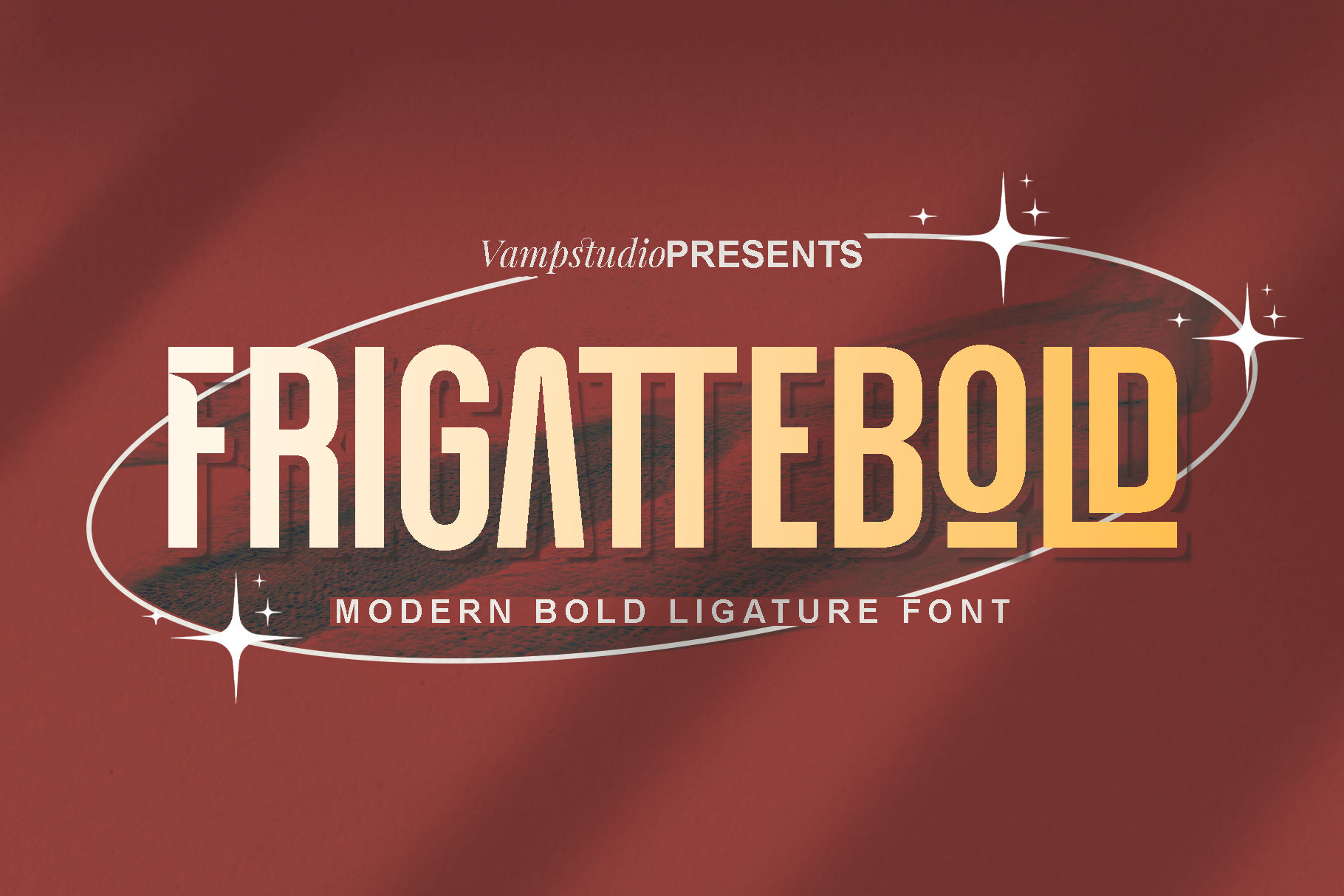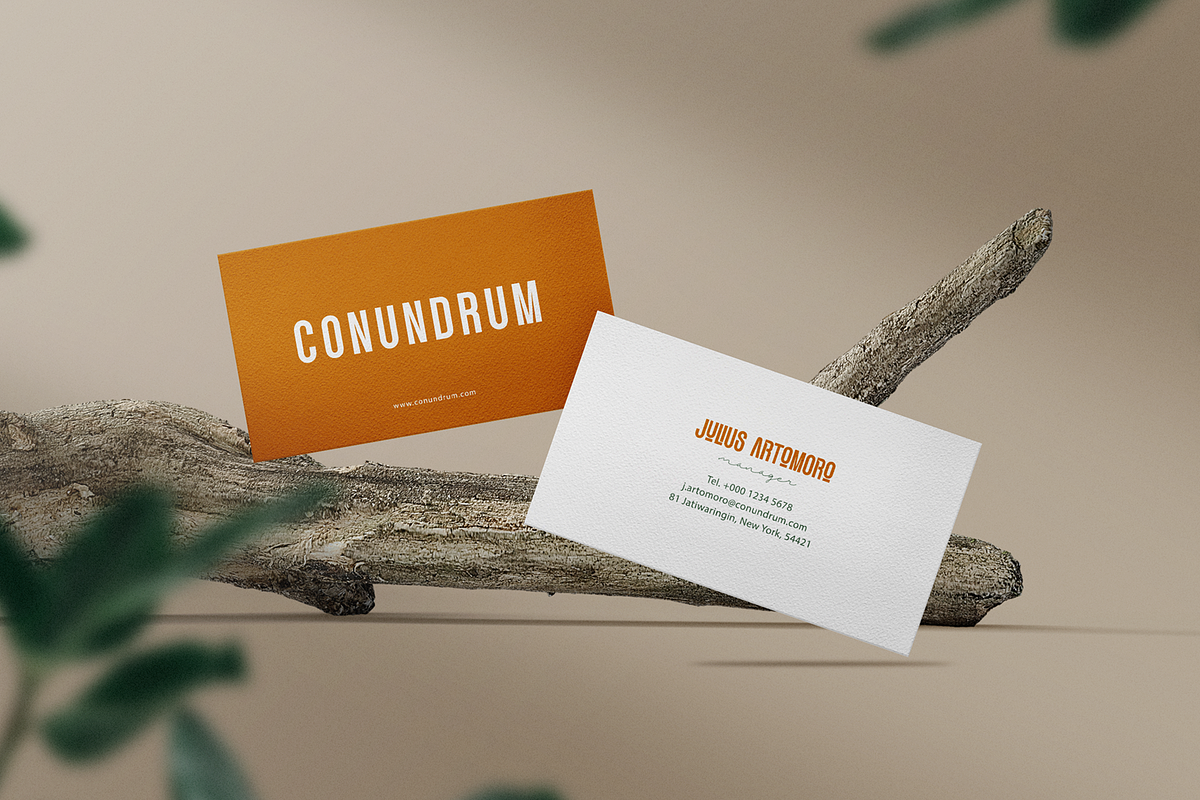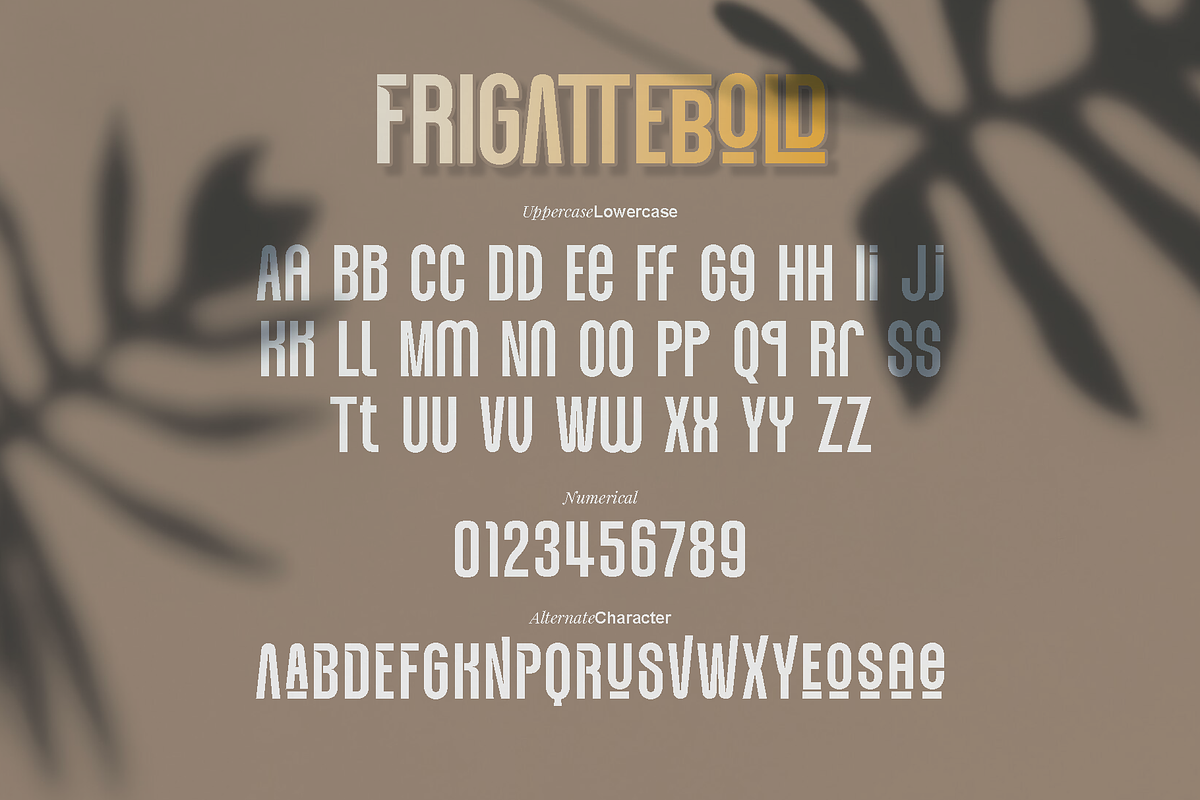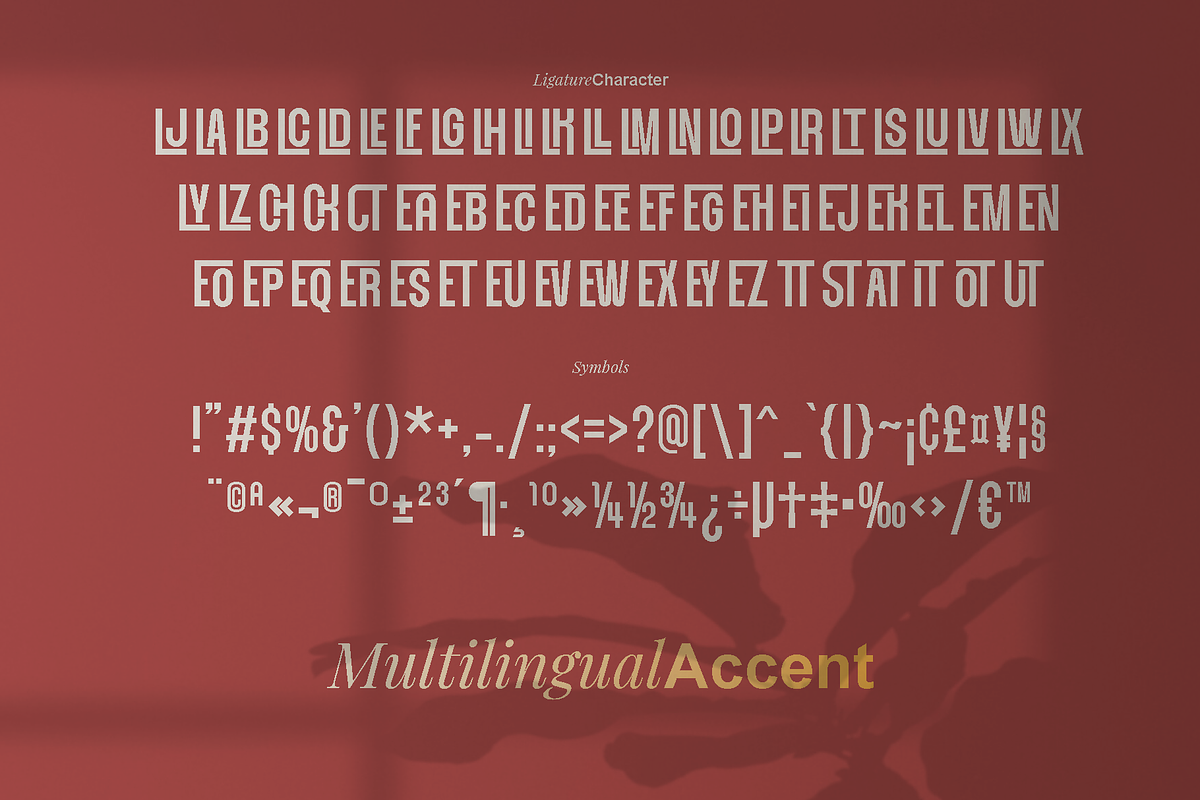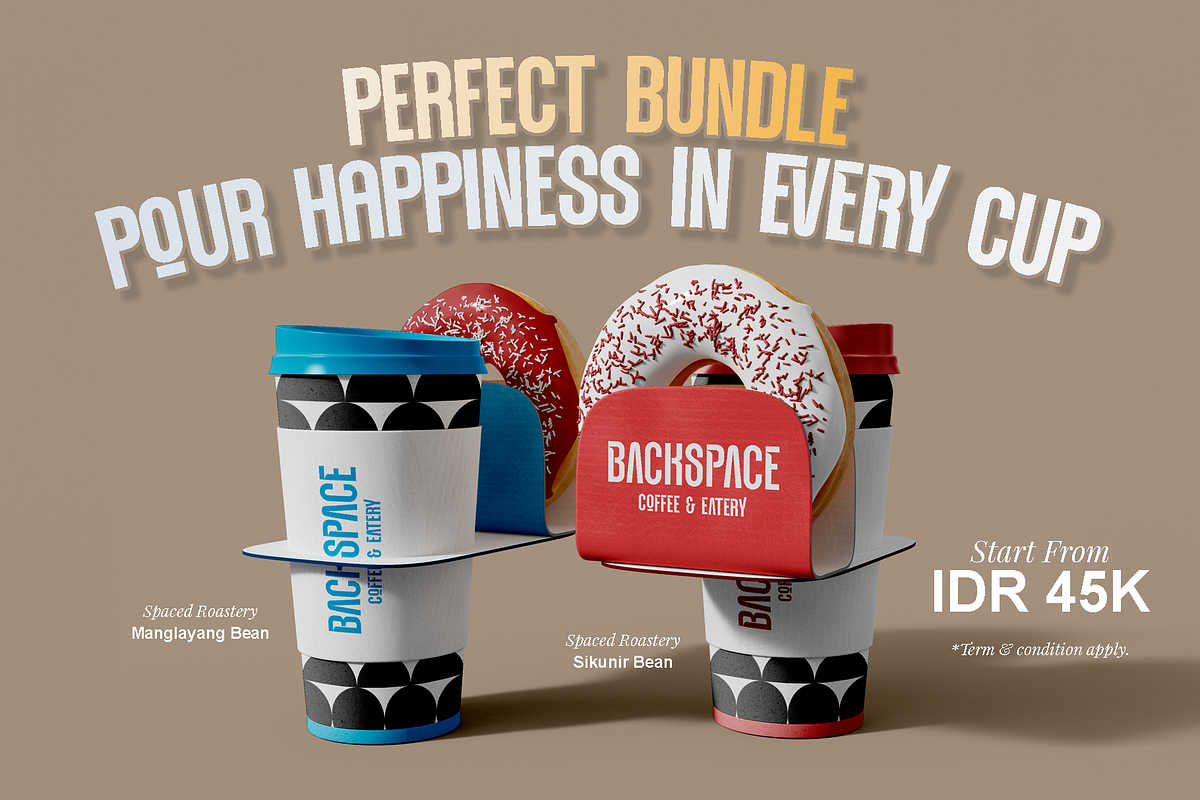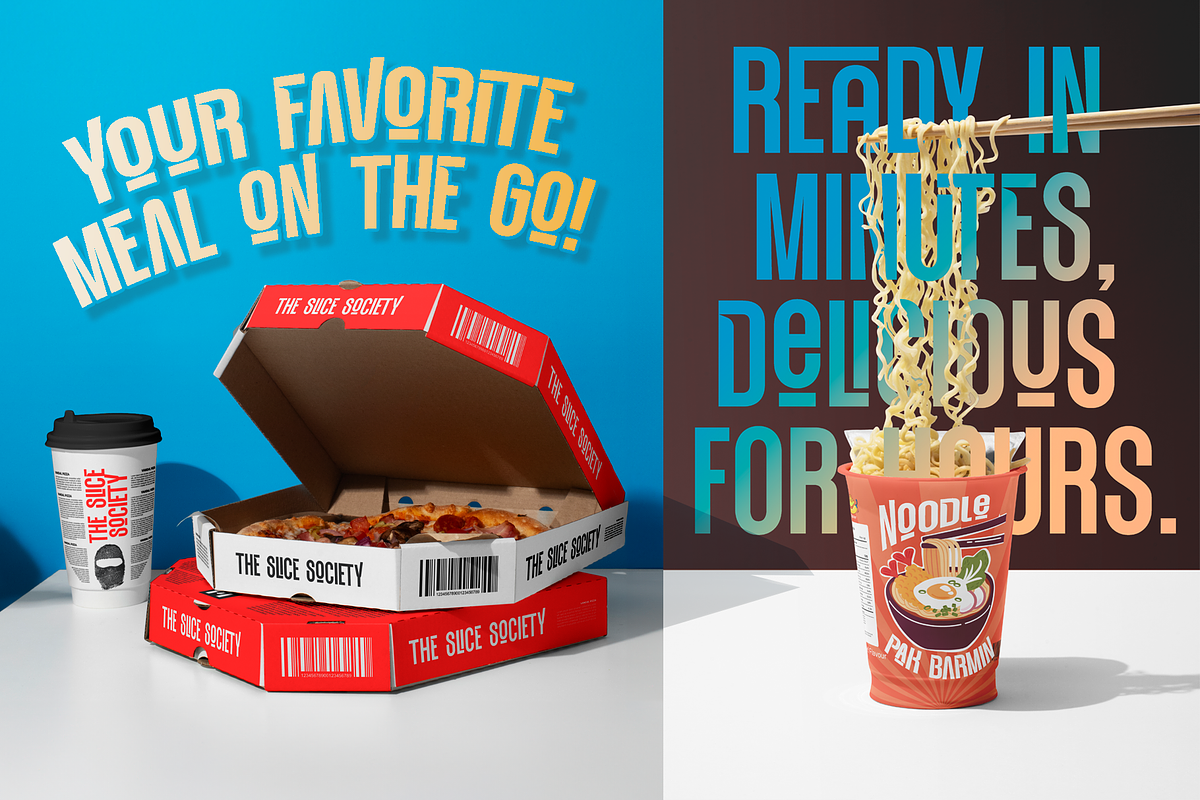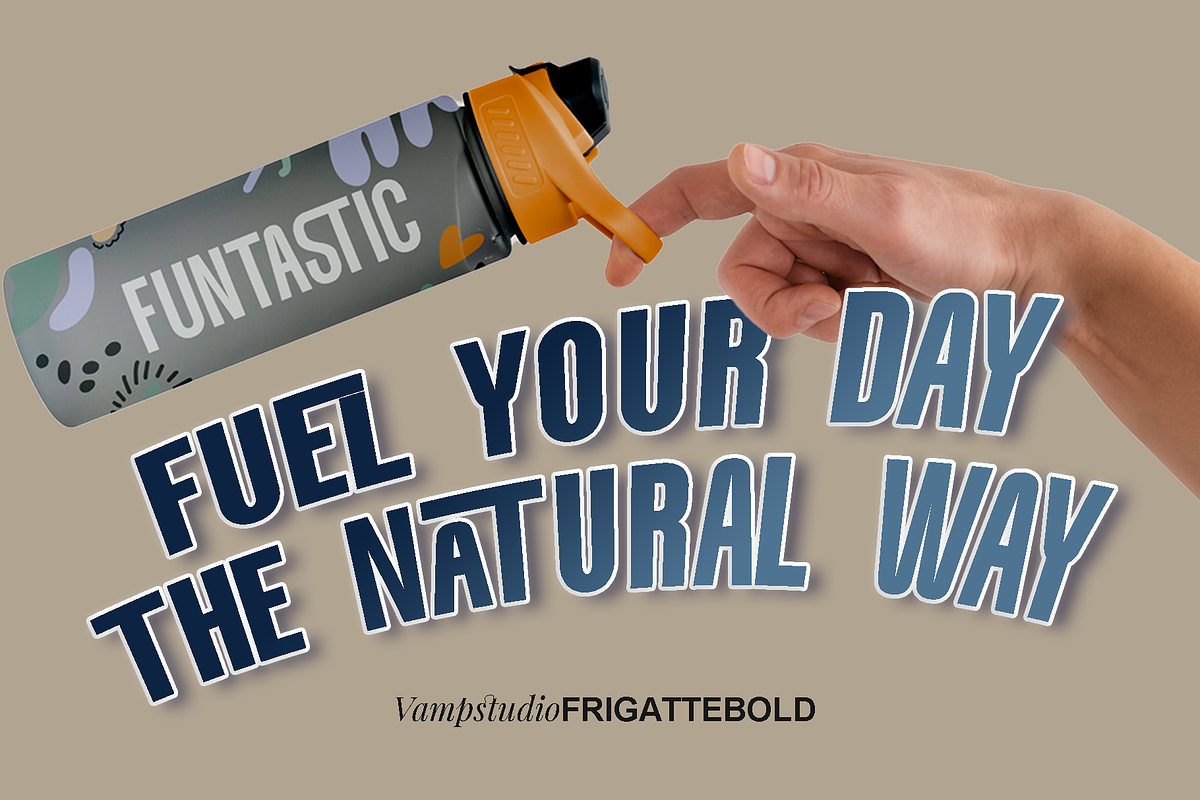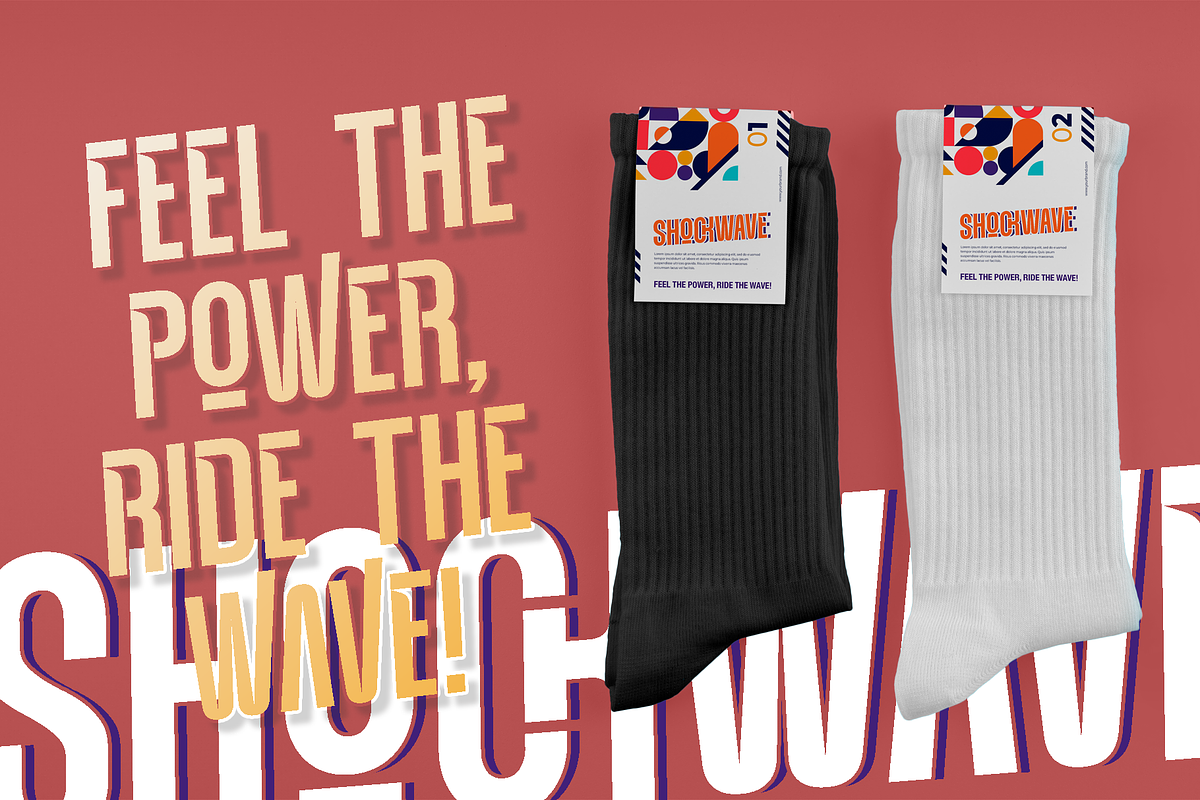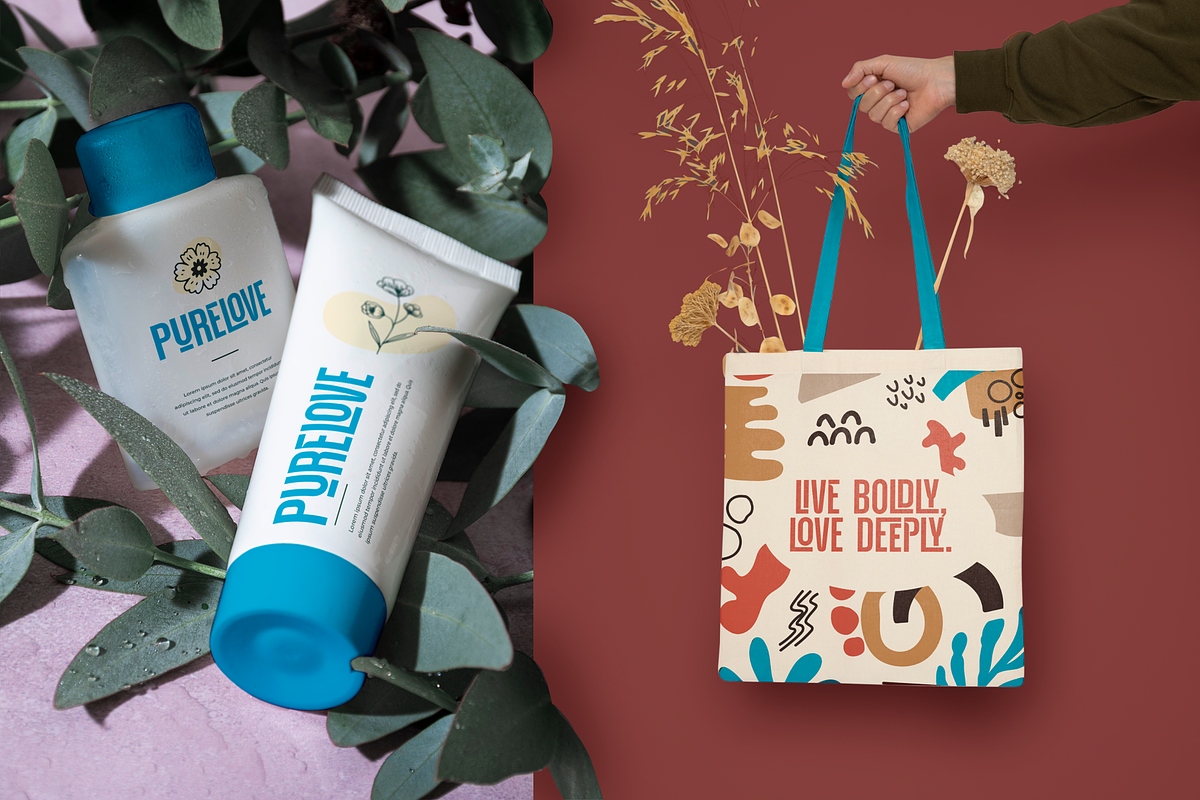
Frigattebold - Modern Display Font
FrigatteBold is a retro-inspired display font featuring bold condensed shapes, clean edges, and unique cut-style alternates. Designed for logos, posters, headlines, and creative branding, this typeface delivers strong visual impact with a modern retro feel. Ideal for both digital and print projects that need eye-catching typography.
- Unique alternate characters
- Complete numerals
- Clean condensed design
- Bold retro aesthetic
- Multilingual characters
- Smooth kerning & balanced spacing